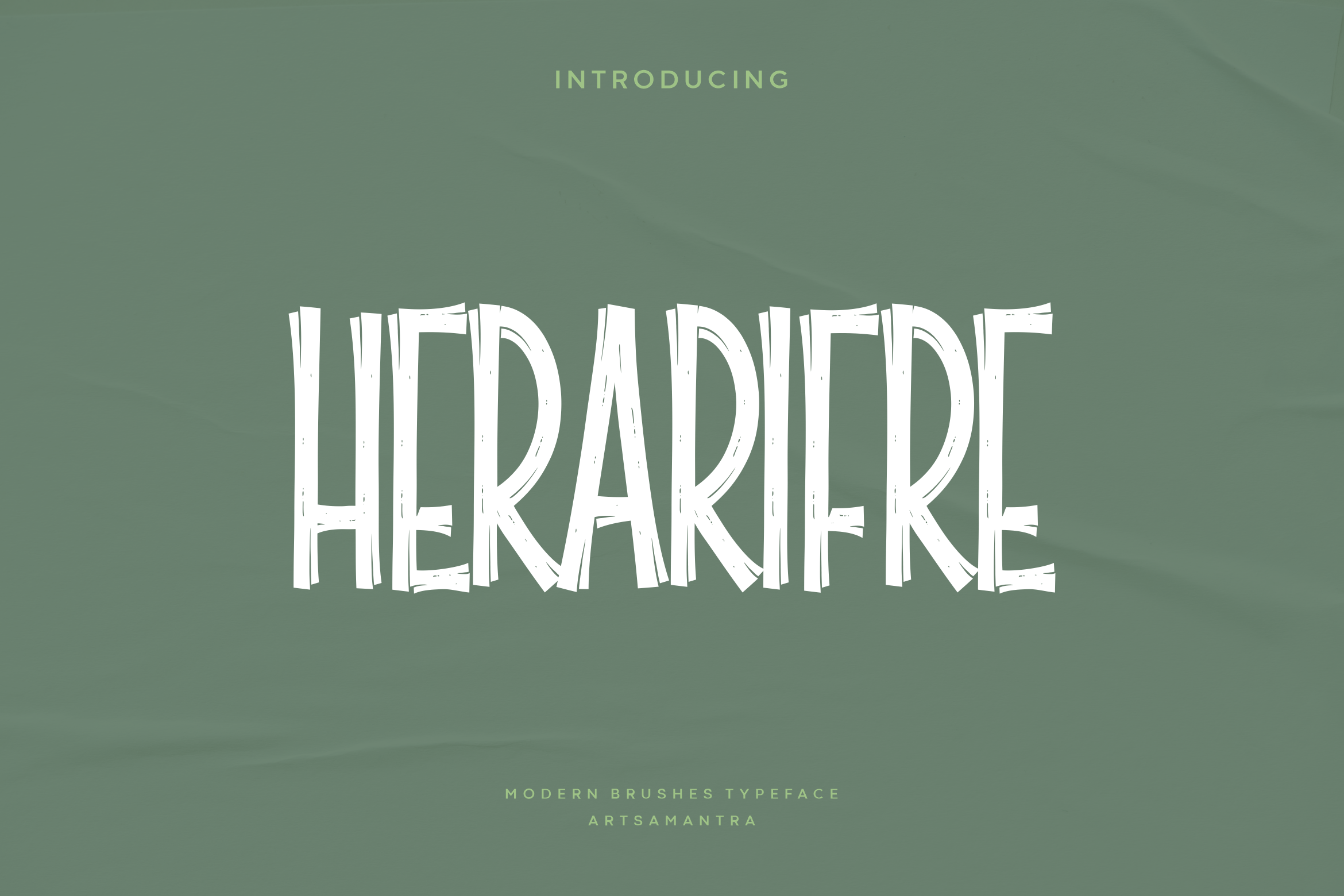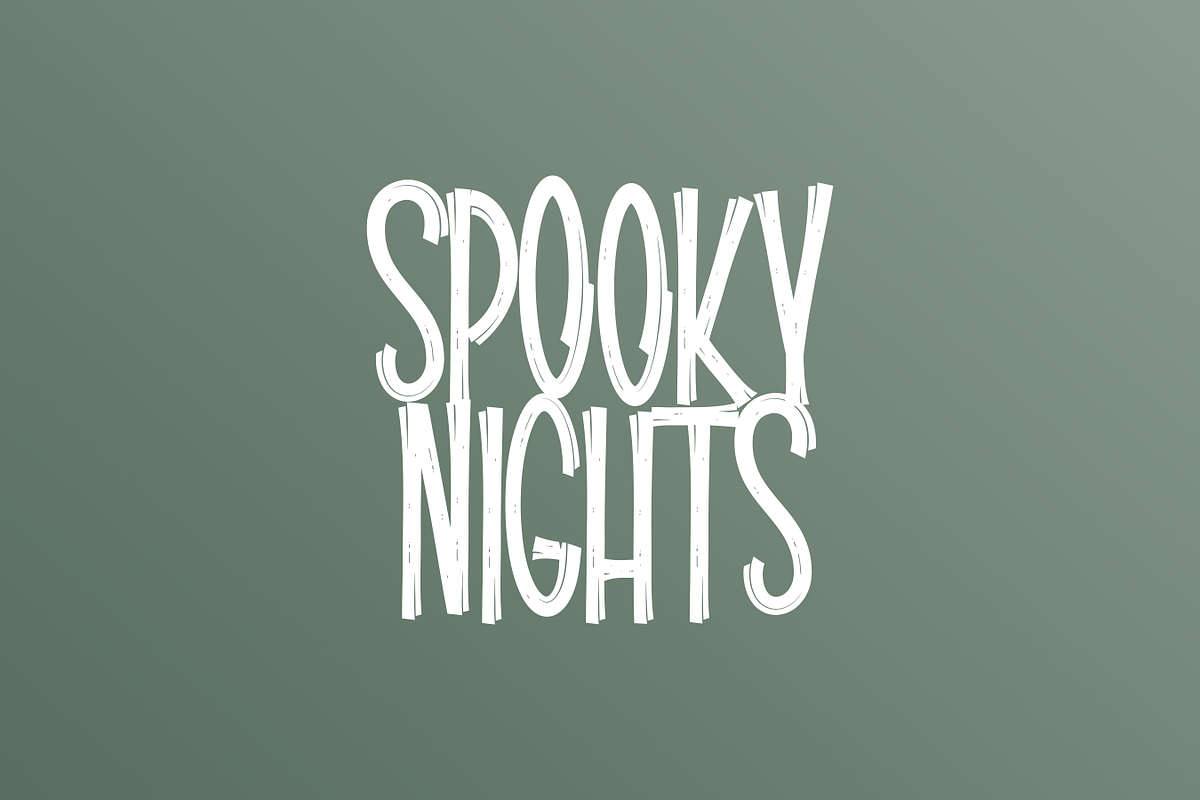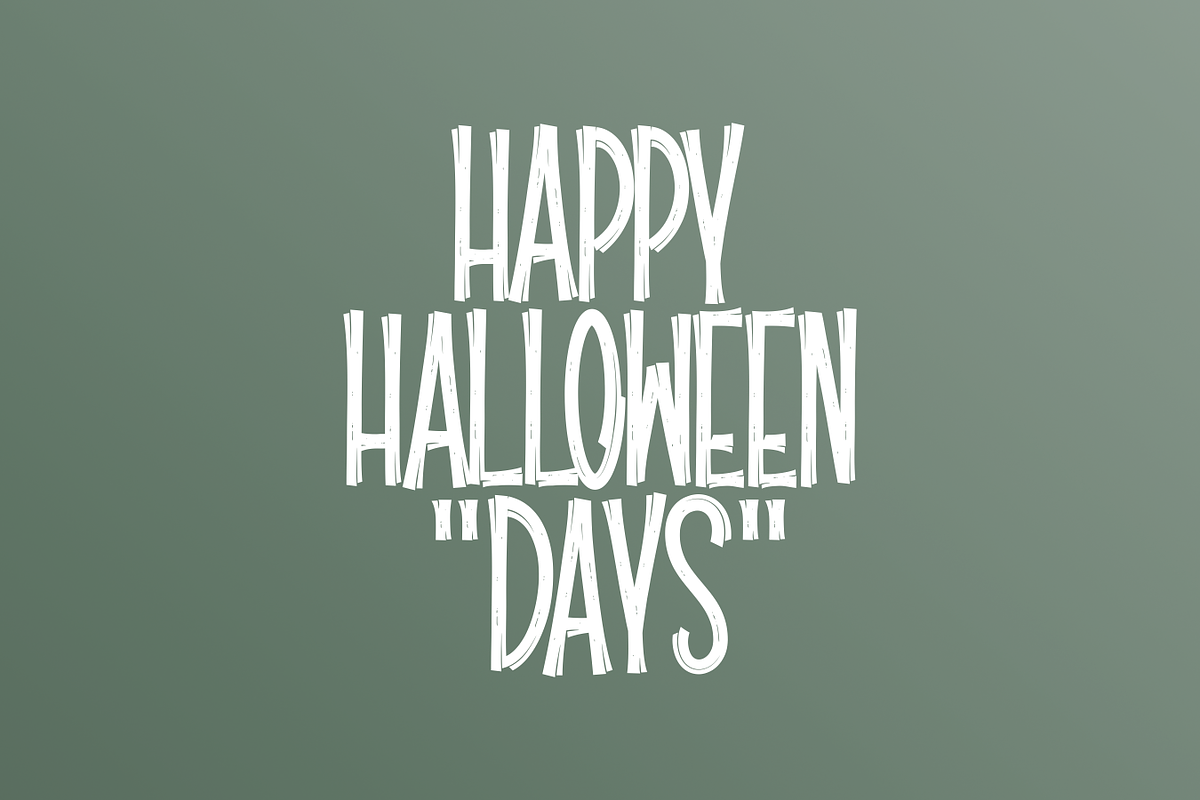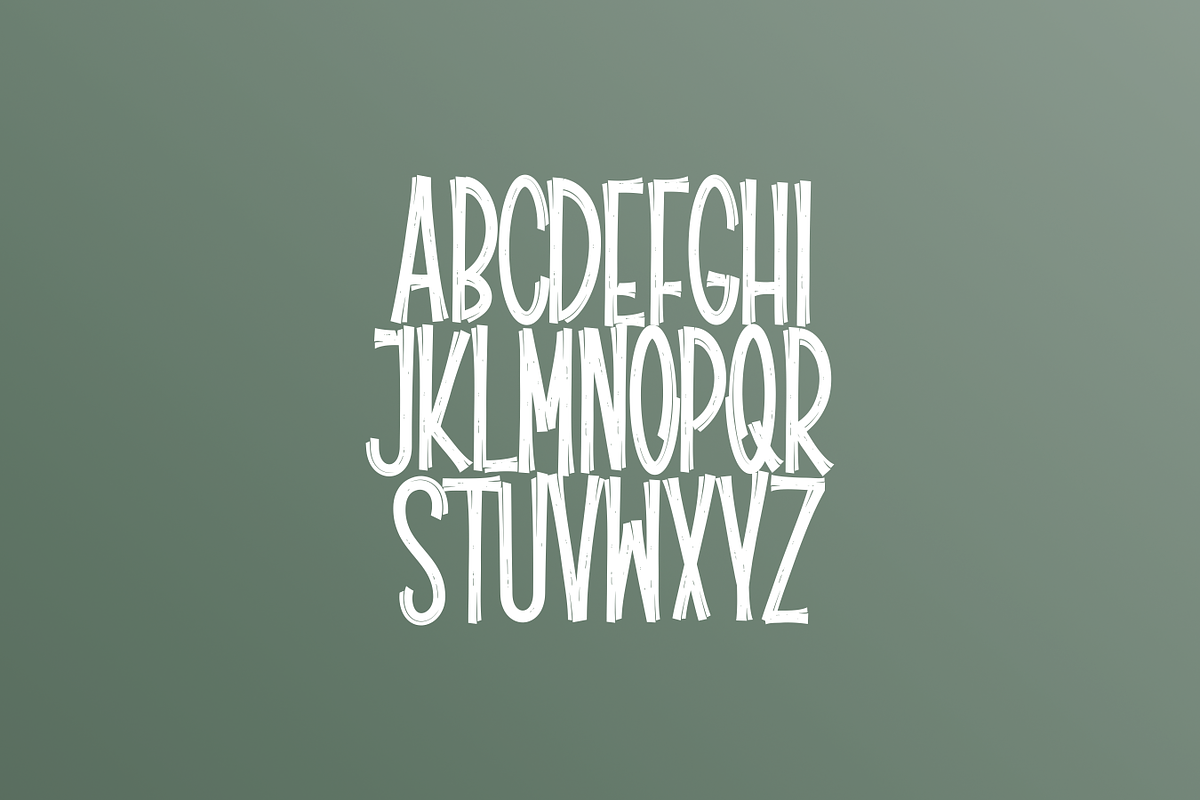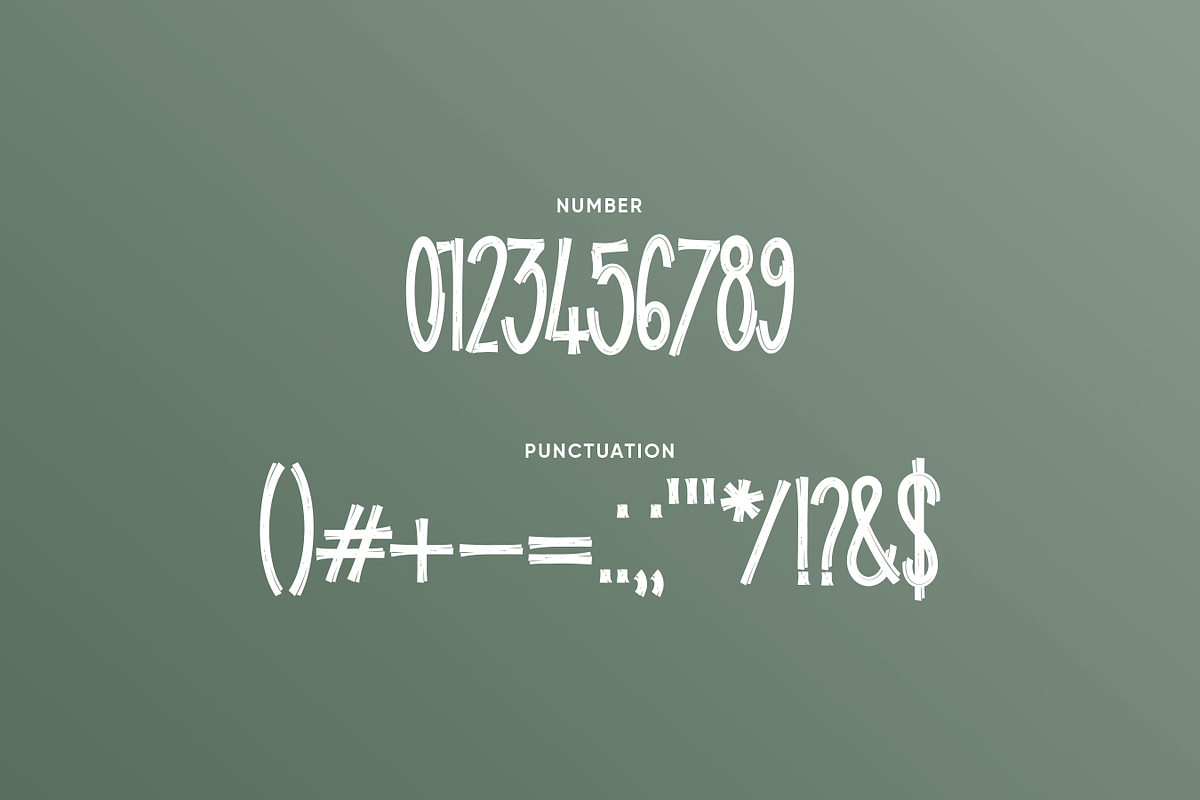
Herarifre - Modern Display Typeface
Herarifre is a Halloween-themed display font with a wood-like texture and brush strokes. Fonts like these are often used to create effects that suit a Halloween atmosphere, especially if you want to give your design a vintage or mysterious look. Herarifre coming in all-caps, this font is perfect for creating signs, decorations, invitations, or any other Halloween project that aims to highlight the Halloween atmosphere with a unique touch.